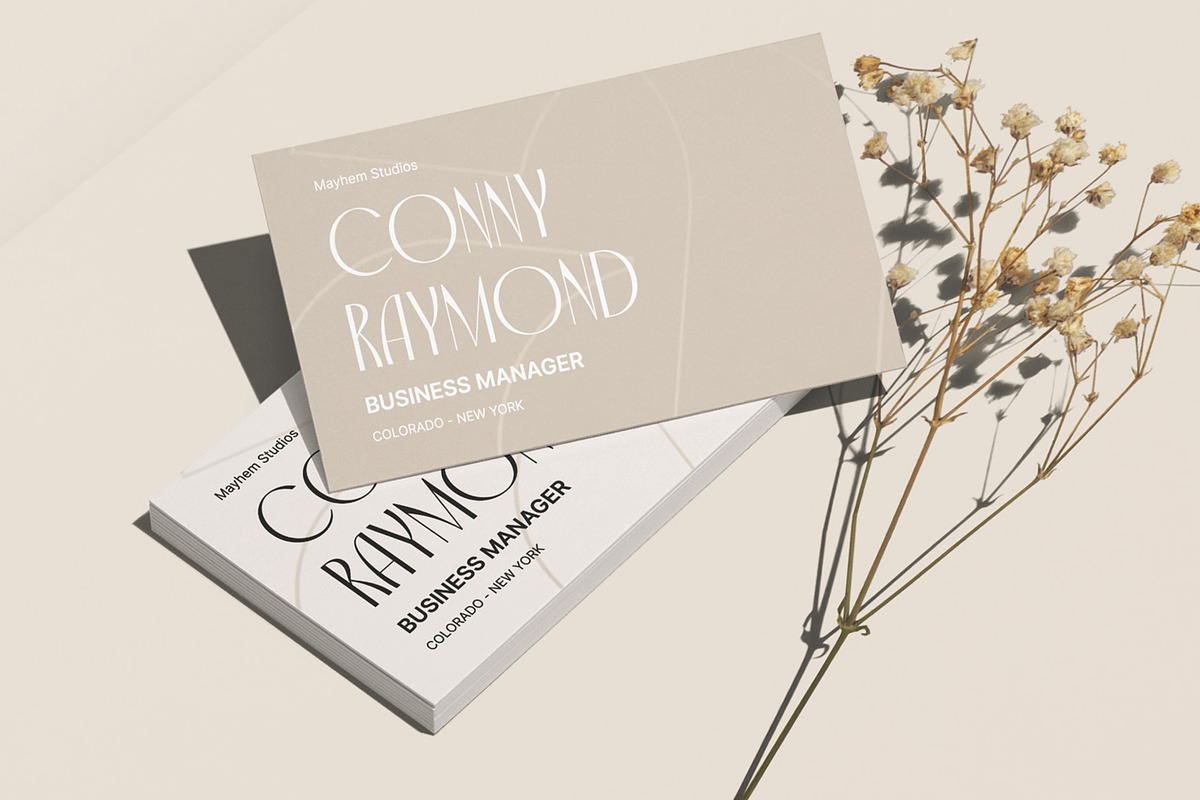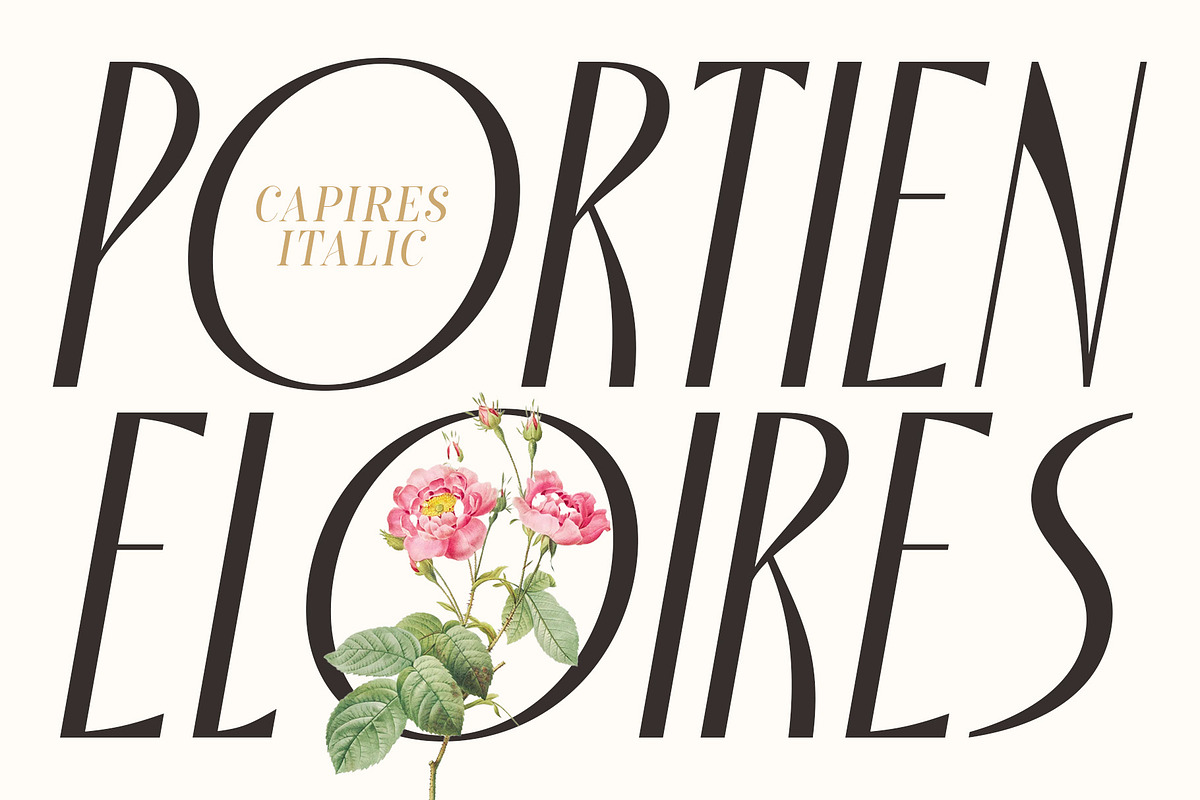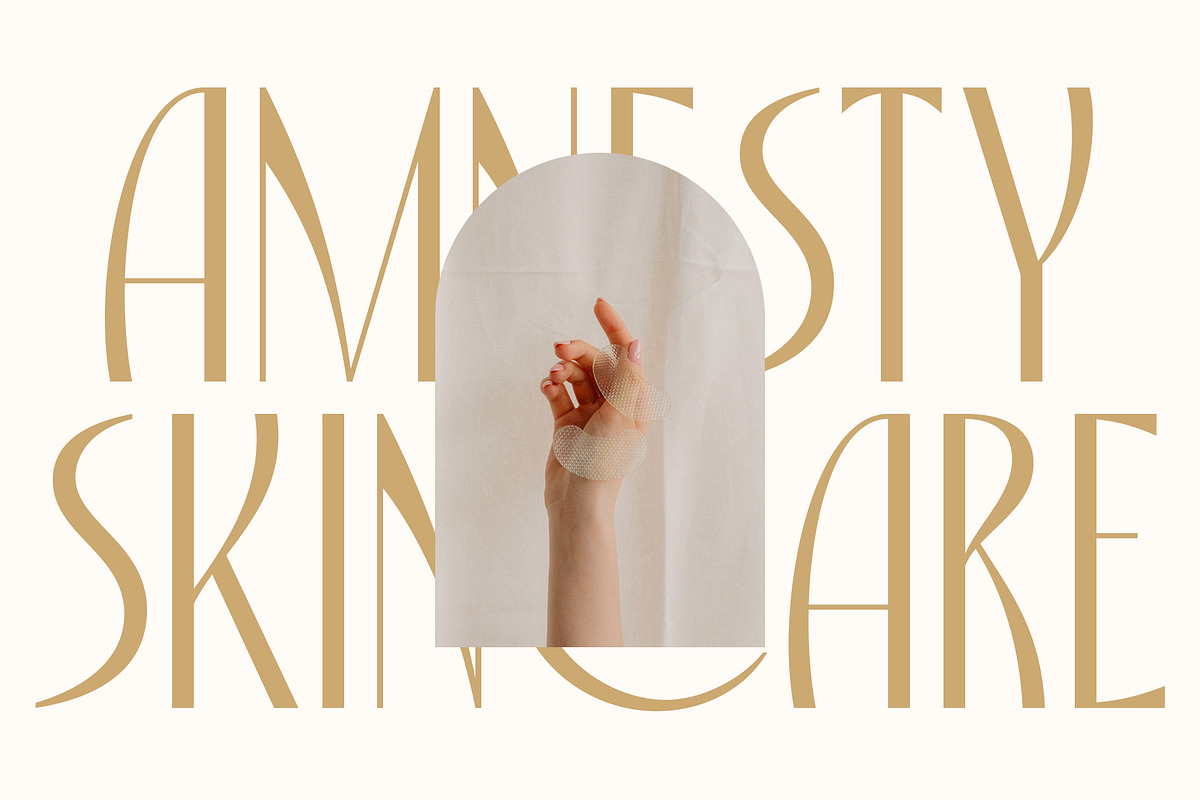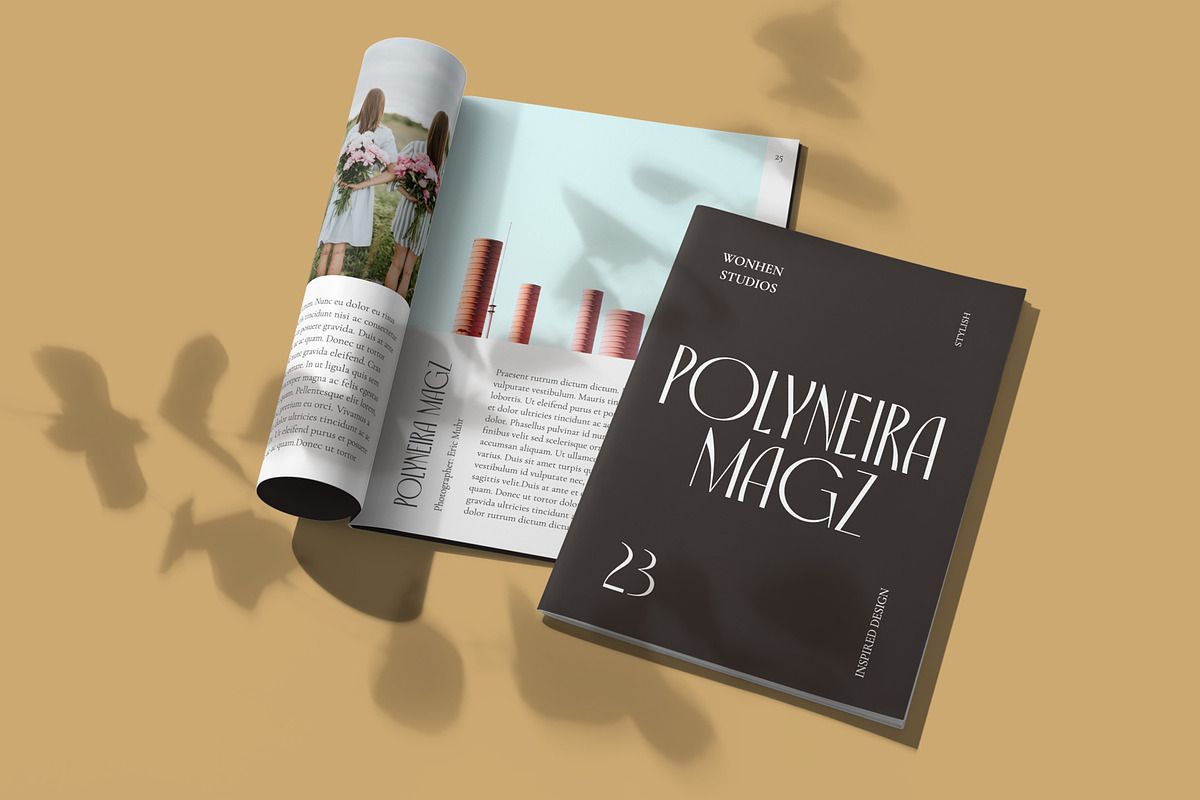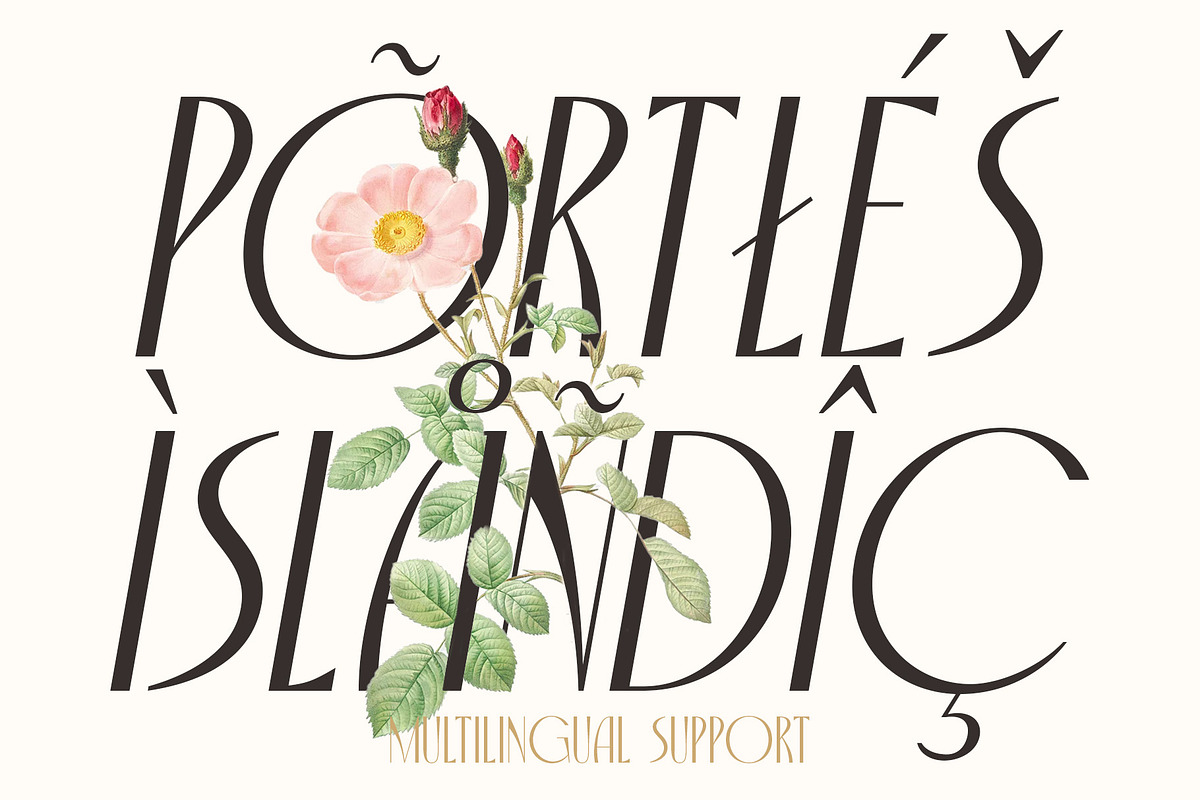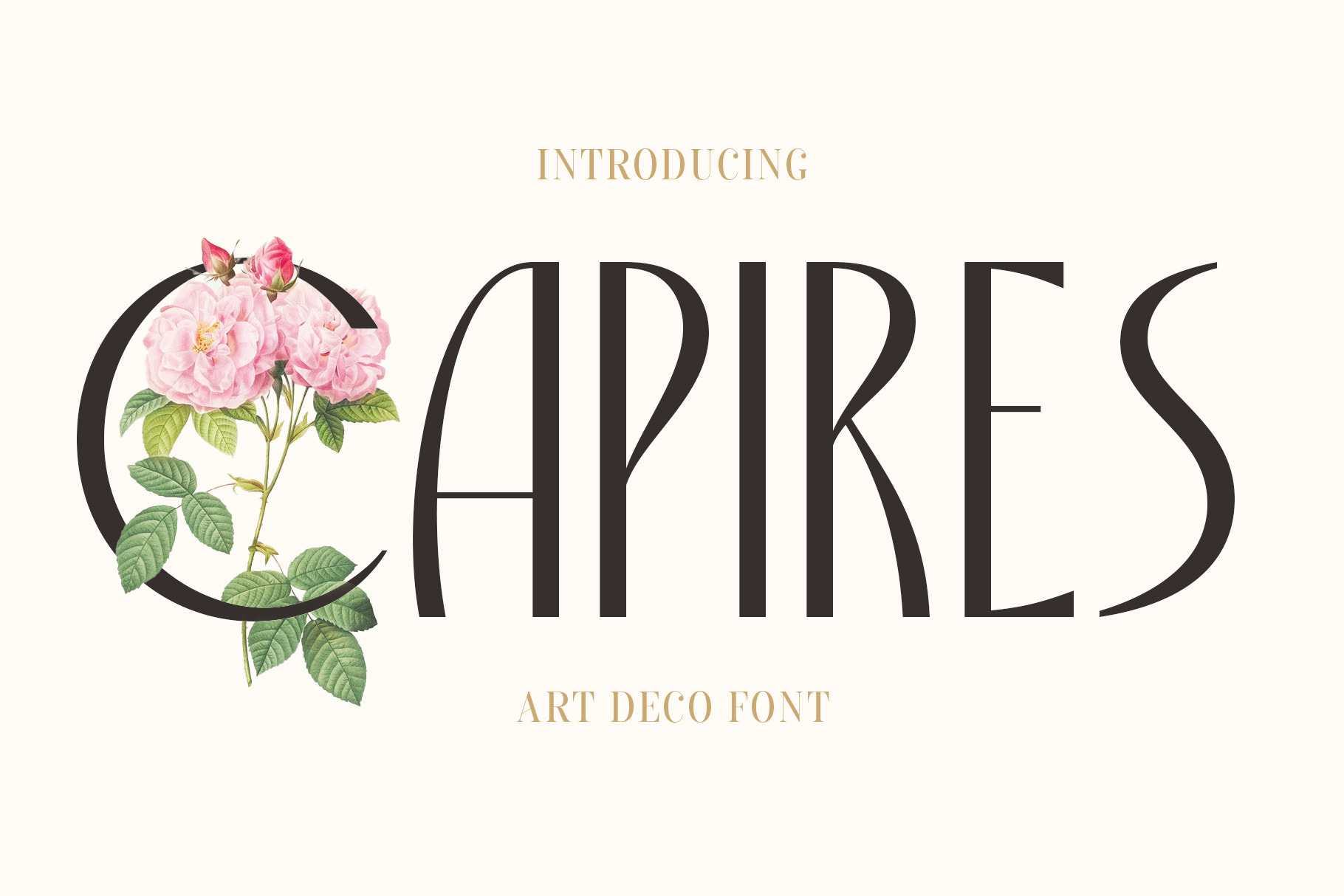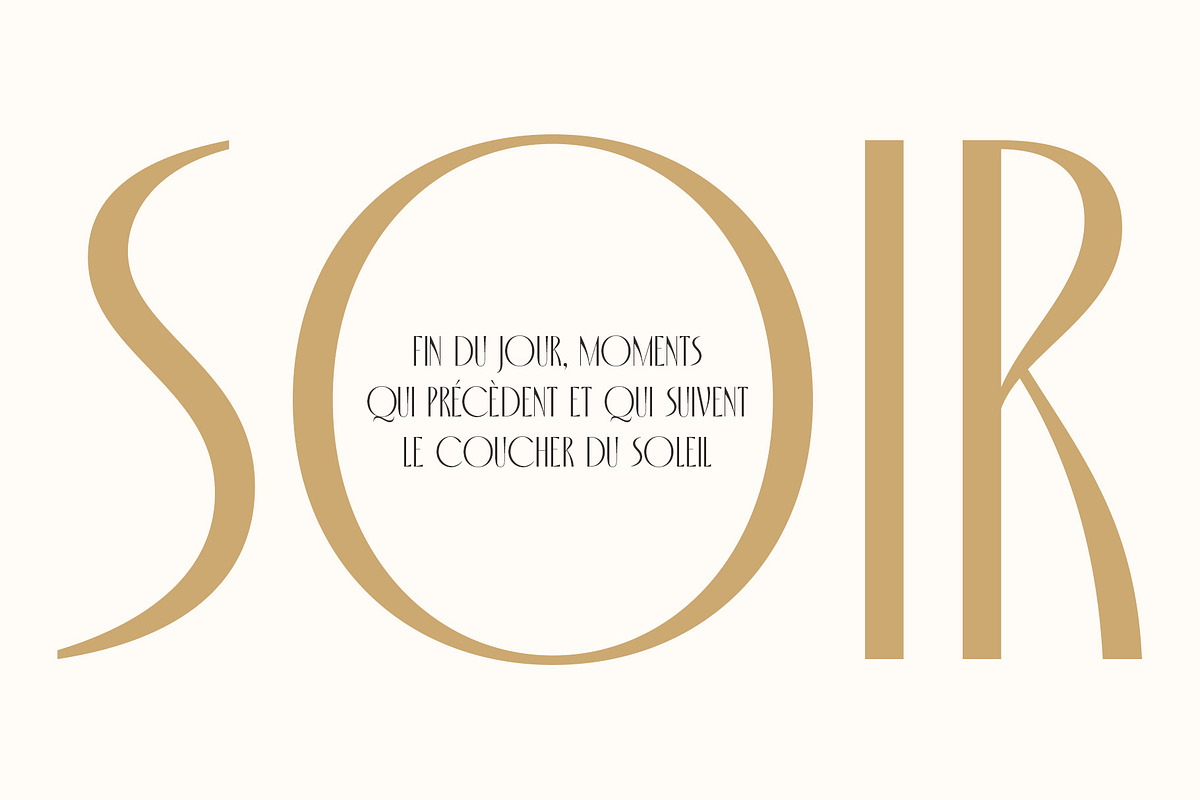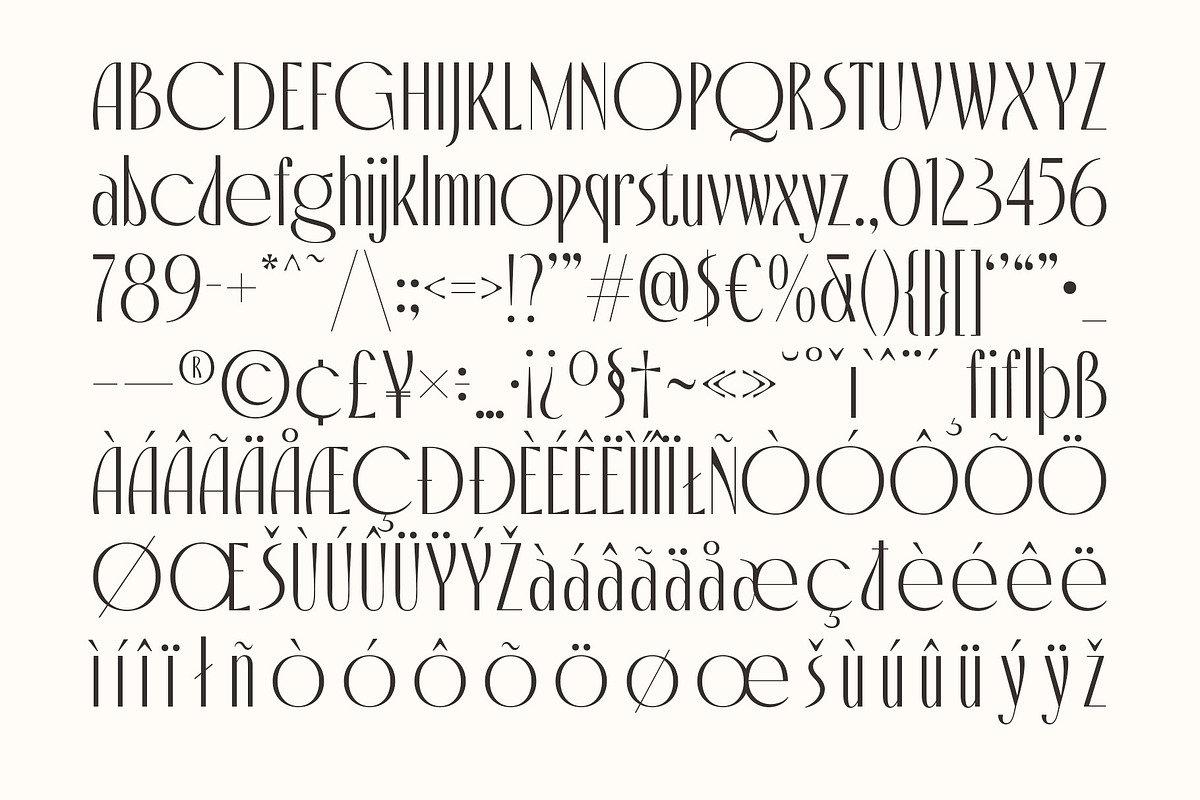
Capires - Art Deco Font
Capires - Art Deco Font is a captivating fusion of two iconic art movements, Art Deco and Art Nouveau, blended into a contemporary typeface that pays homage to the rich artistic heritage of both styles. This font beautifully combines the geometric precision of Art Deco with the intricate, organic motifs of Art Nouveau, resulting in a harmonious masterpiece of design.
Capires is the perfect choice for projects that demand a unique and mesmerizing synthesis of these two influential art movements. Whether you're working on branding, packaging, or editorial design, Capires brings a sense of timeless elegance and artistic richness to your work.
With Capires, your designs seamlessly bridge the gap between past and present, making it an exceptional choice for projects that seek to capture the essence of both Art Deco's geometric refinement and Art Nouveau's flowing, ornamental beauty. This font transforms your creations into an elegant and visually captivating experience, where tradition meets modernity in a harmonious embrace.
- Capires Regular
- Capires Italic